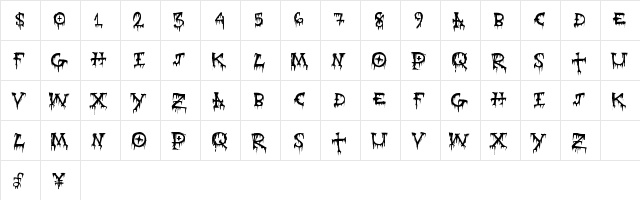
GravePain Regular Font Preview
GravePain Regular
GravePain Regular Font Details
| Foundry | Xerographer Fonts |
| Designer | Xerographer Fonts Max Infeld |
Design Context for GravePain Typeface
GravePain is a composed and adaptable typeface that performs quietly and consistently across a wide range of design contexts.